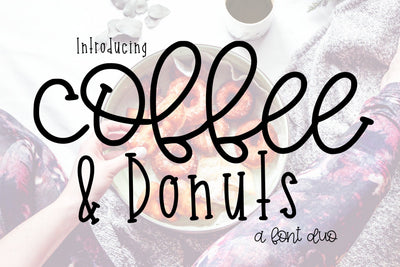
Coffee and Donuts (Font Duo)
Coffee and Donuts is a tasty font duo of a hand lettered script, complete with alternates, and a serif print font. Paired together, they are the perfect combination -- just like coffee and donuts!